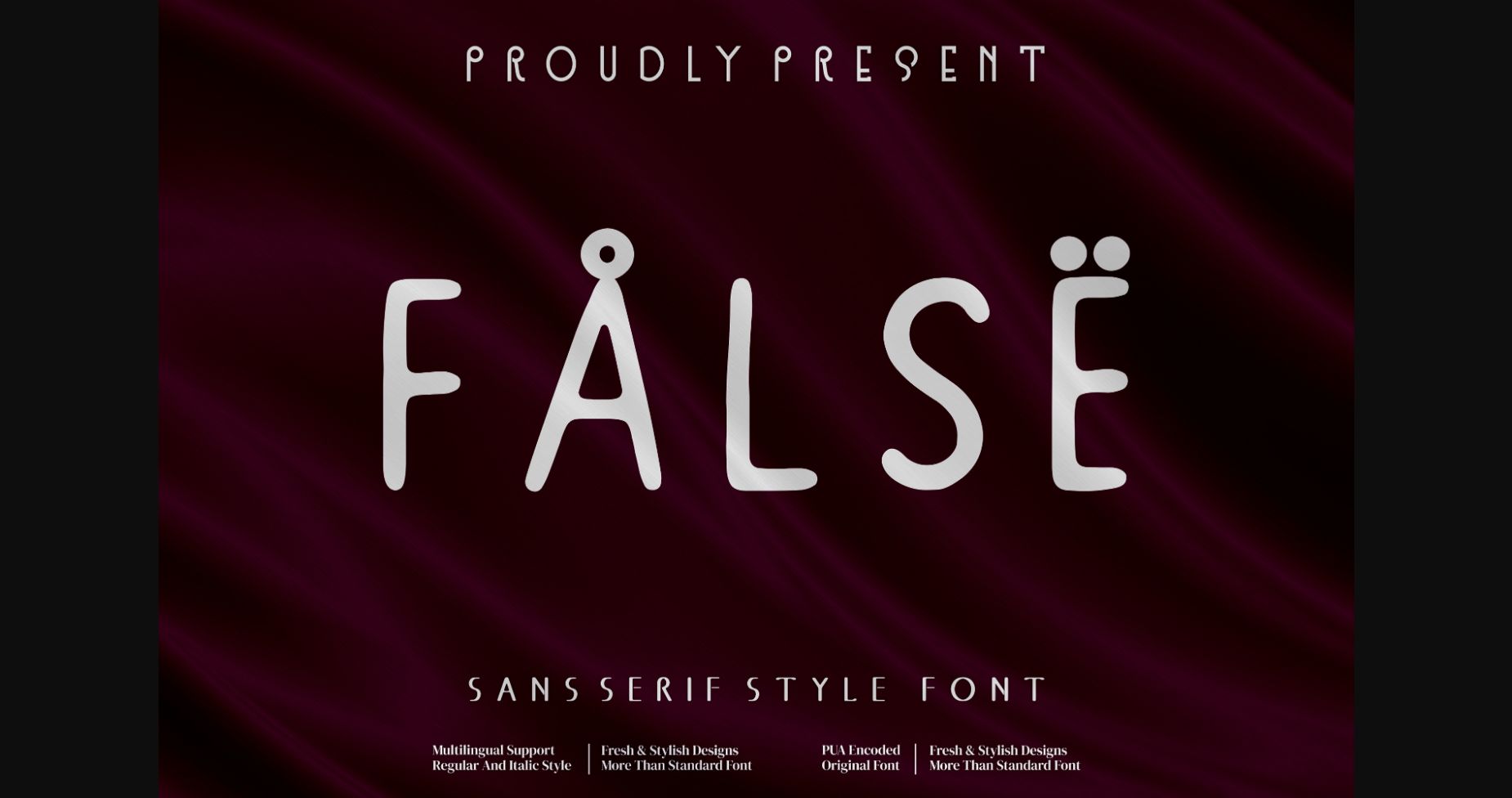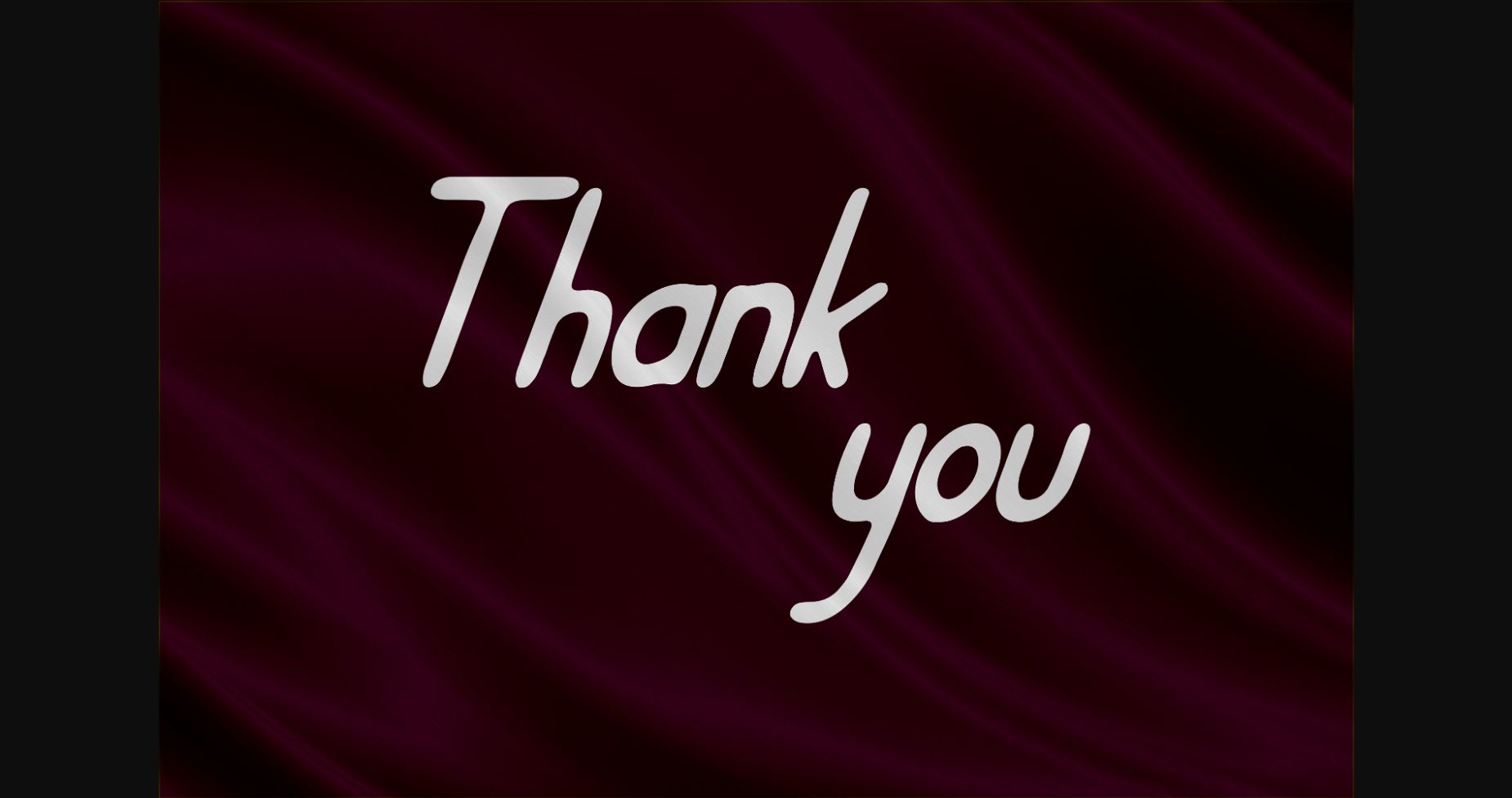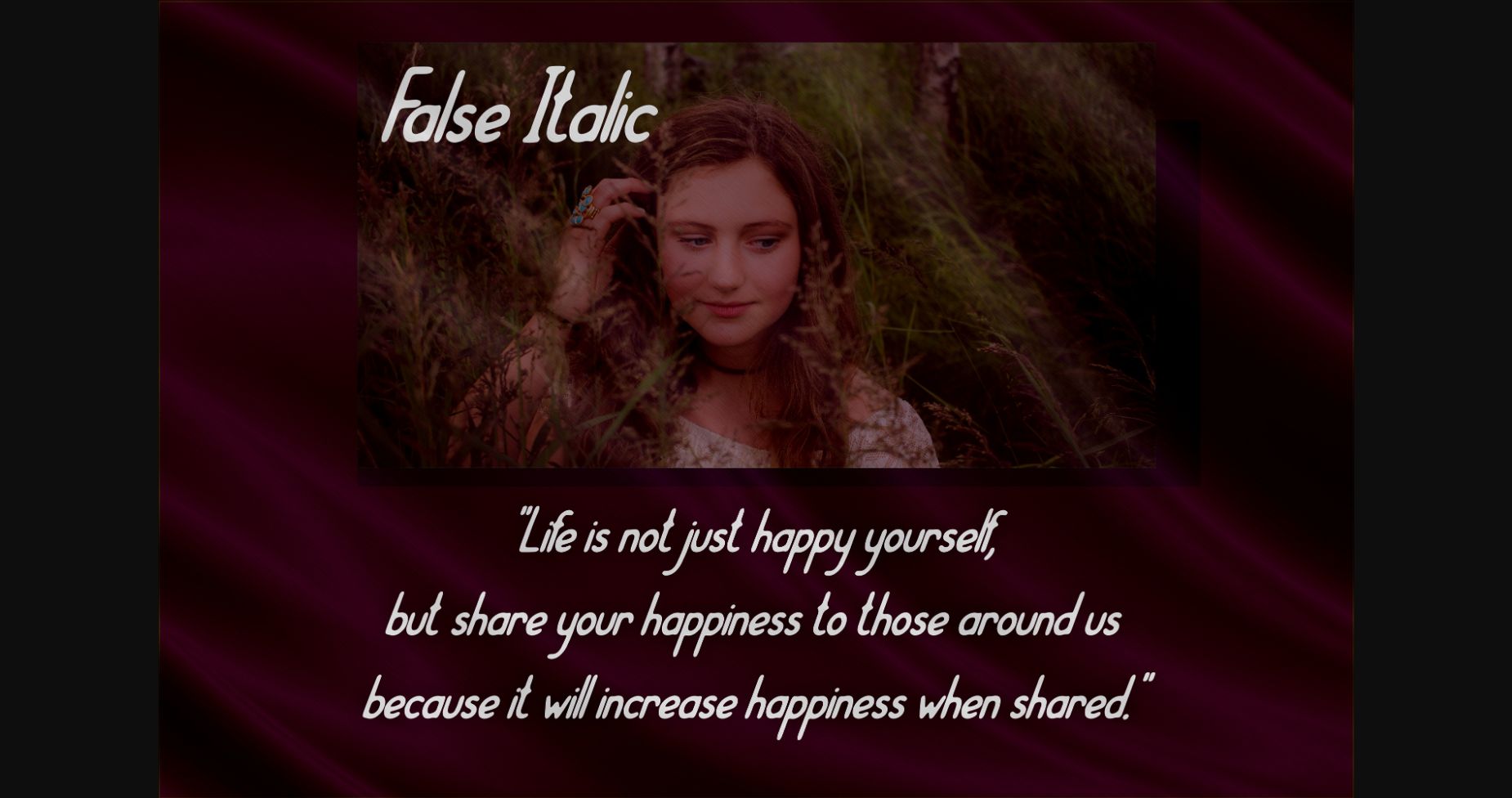
About False Note Font
False Note is a beautiful sans serif font suitable for any projects such as logos, branding projects, homeware designs, product packaging, mugs, quotes, posters, shopping bags, t-shirts, book covers, name cards, invitation cards, greeting cards, label, photography, watermark, special events, and all your other luxury projects that need a premium taste.